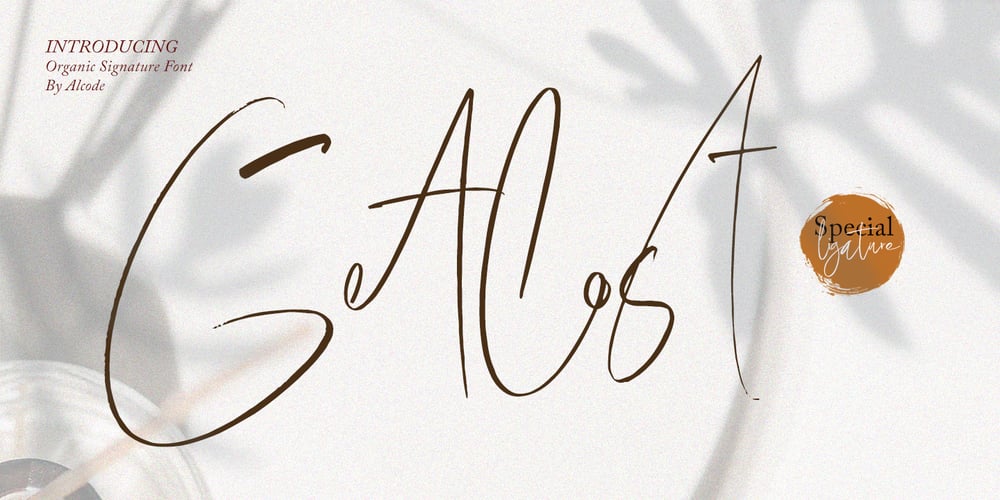
Getlost
Getlost font
Getlost Font Family was designed by Sukjana Almunandar and published by Alcode. Getlost contains 1 styles and family package options. Getlost is an organic signature font inspired by natural brush typography. Written in rapid motion using a slightly dry brush pen. This will give you a fresh and elegant design. Getlost comes with uppercase and lowercase letters, large sets and small sets, numbers, alternative styles for several lowercase characters are also available that make your text and design more attractive.Try Getlost, enjoy the richness of OpenType features and let her fun and elegant excitement make you happy and enhance your creativity! You can use this font very easily.Included multilingual support and special ligatures